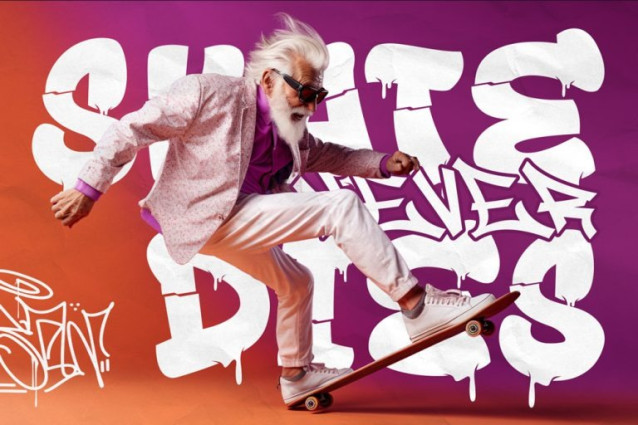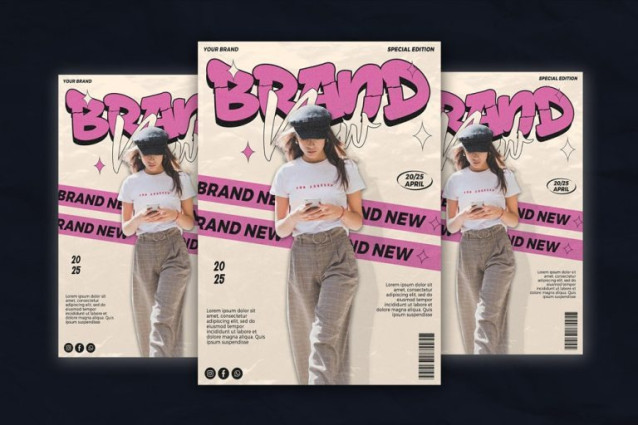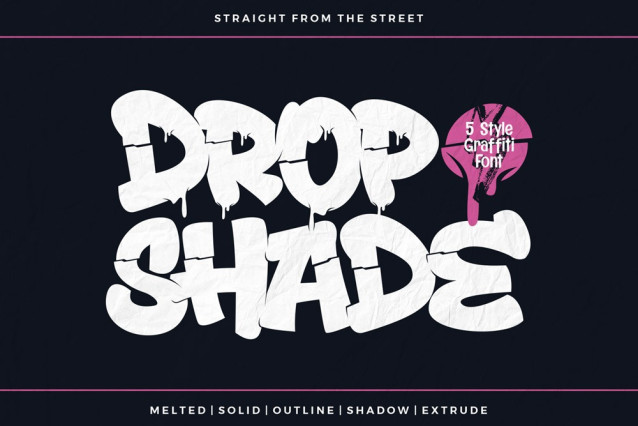
Drop Shade Font
Drop Shade Font is a bold and expressive melted 3D graffiti font designed for designers, artists, and creators who want to push urban style to the next level. With its uppercase characters, dripping shapes, and dimensional effects, Drop Shade brings the look of melting paint and raw street energy into your design projects.
Packed with five unique styles—Clean, Melted, Outline, Extrude, and Shadow—Drop Shade is more than just a graffiti font. It’s a full graffiti type system built to dominate apparel designs, music promotions, posters, gaming logos, and digital artwork. Combined with multilingual support, this font is not only powerful but also global.